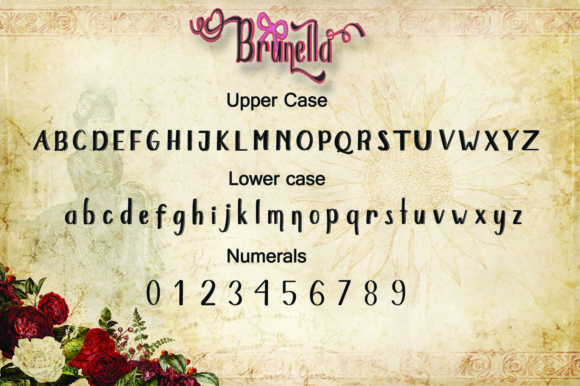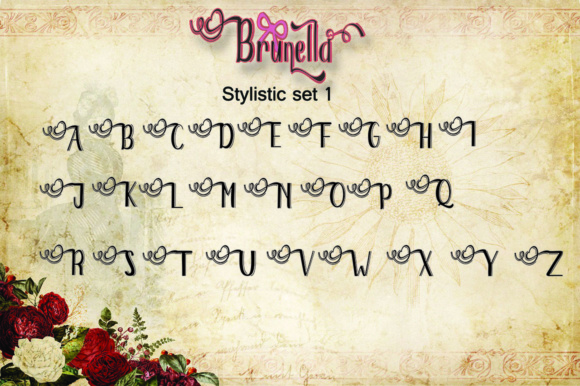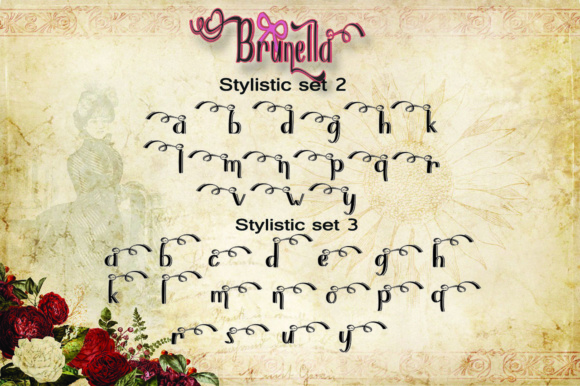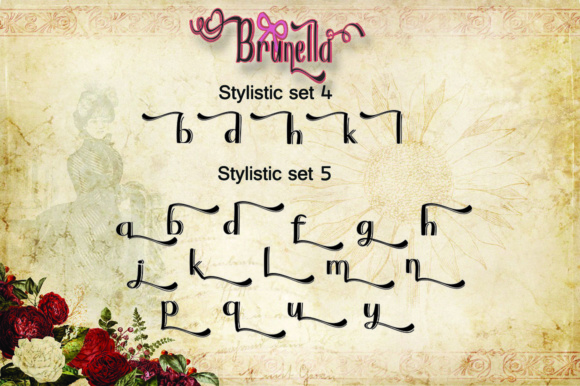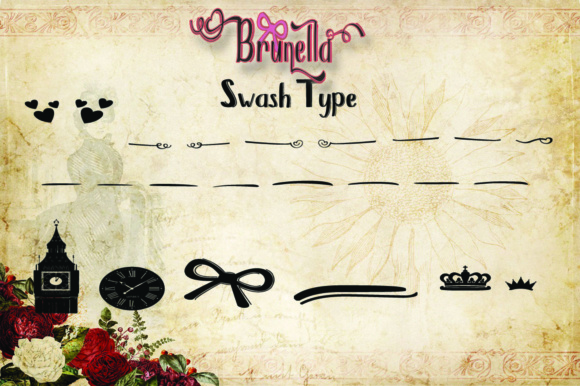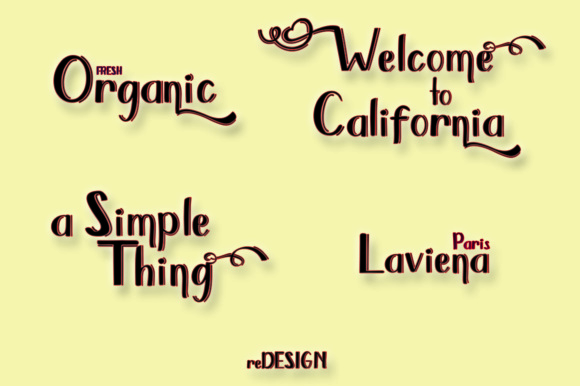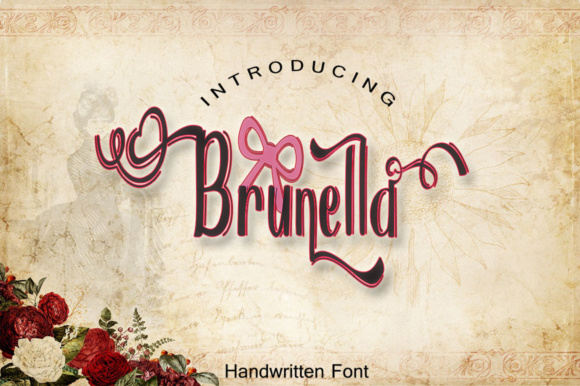
The Designer’s Delight: Brunella Font
I’ll never forget the time I was working on a logo design project for a boutique bakery. I had a clear vision of the brand’s personality – warm, inviting, and playful – but I just couldn’t find the right font to bring it to life. That was until I stumbled upon Brunella, a unique handwritten typeface that instantly resonated with my design aesthetic. In this article, I’ll share my experience with Brunella, its features, and how to make the most of this beautiful font in your designs.
First Impressions: What I Love About Brunella
Brunella is more than just a font – it’s a design statement. Here are some things that I love about it:
- ✨ Unique and Handwritten: Brunella’s handwritten style gives it a personal touch that’s perfect for brands looking to stand out.
- ✅ Bold and Beautiful: The font’s bold characters make it ideal for headlines, logos, and any design element that needs to grab attention.
- 🌈 Versatile: Brunella can be used for a wide range of projects, from logos and posters to photos and more.
- 🔍 Many Stylistic Sets: Brunella includes multiple stylistic sets, offering a range of variations to keep your designs fresh and interesting.
While Brunella is an excellent font, there are a few things to keep in mind:
- 🤔 Legibility at Small Sizes: Like many handwritten fonts, Brunella can be a bit tricky to read at very small sizes. It’s best used for headlines or larger design elements.
- ⚠️ Pairing with Other Fonts: Brunella’s bold style can sometimes overpower other fonts. Choose complementary fonts that balance out its boldness.
The Story Behind Brunella
Brunella was designed with the intention of creating a font that feels both personal and bold. Inspired by traditional handwritten scripts, the designer aimed to craft a typeface that could be used in a variety of creative projects, from branding to advertising. The result is a font that’s both unique and versatile.
| Font Name | Brunella Font |
| Author | dmletter31 |
| What type of projects is Brunella best suited for? | Brunella is perfect for projects that require a bold, yet personal touch, such as logos, posters, and social media graphics. |
| Is Brunella suitable for body text? | While Brunella is stunning for headlines and titles, it’s not typically recommended for body text due to its bold style and potential legibility issues at smaller sizes. |